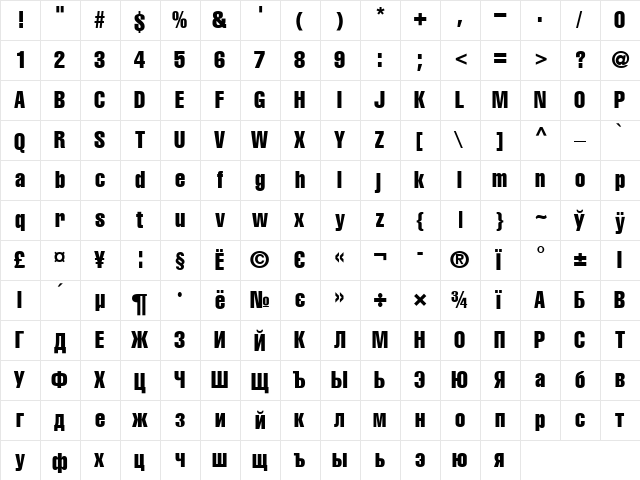
HeliosCompressed Regular Font Preview
HeliosCompressed Regular
Design Context for HeliosCompressed Typeface
HeliosCompressed takes a measured approach to typography — its balanced proportions and neutral character make it a reliable workhorse for both digital and print work.